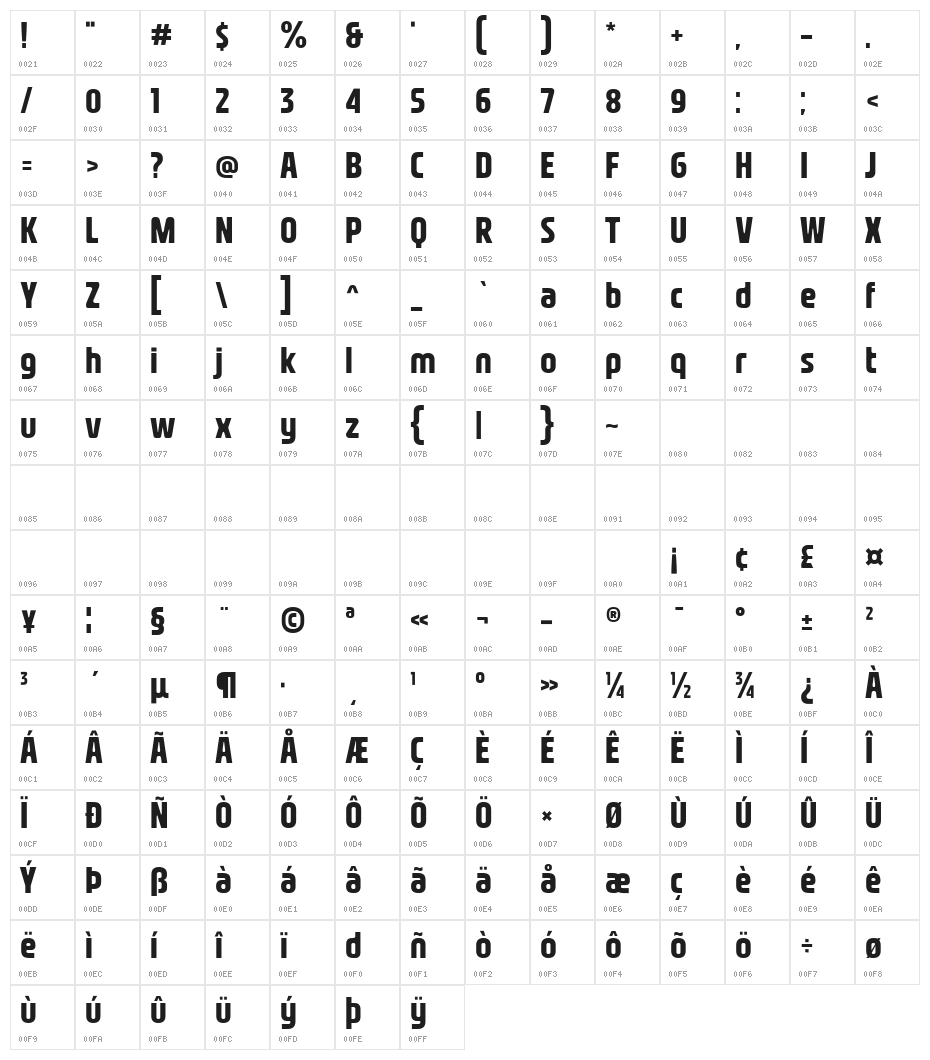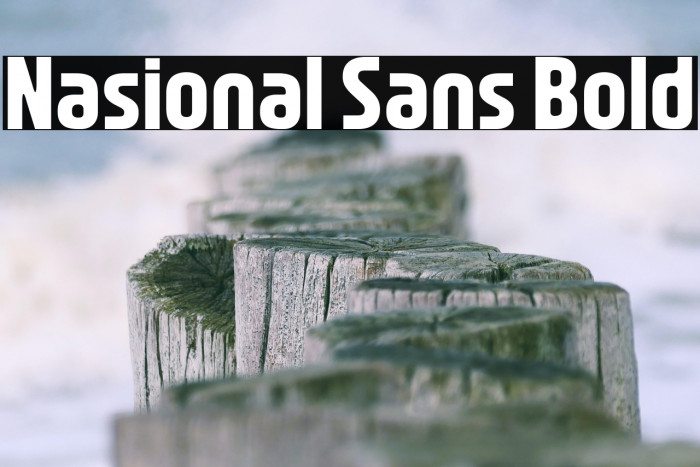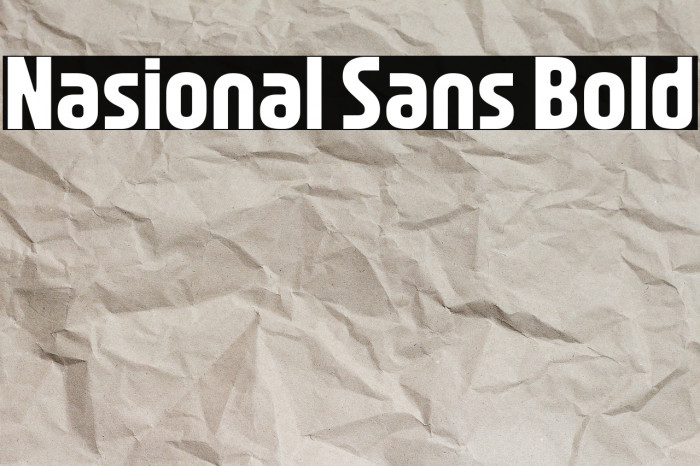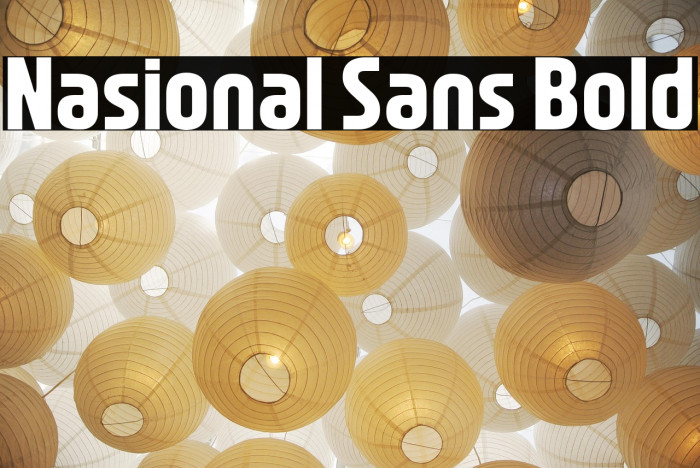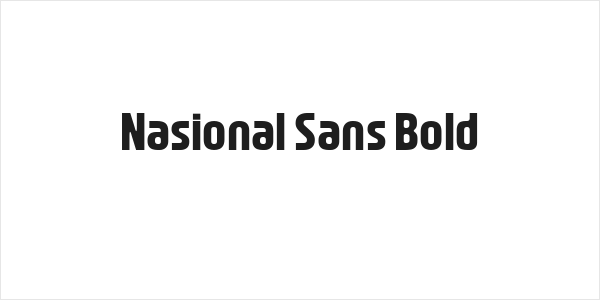
Nasional Sans Bold Font
Nasional Sans Bold Description
This font presents a bold and assertive sans-serif style, characterized by its strong geometric shapes and uniform stroke widths. The uppercase letters are robust and impactful, making them suitable for attention-grabbing headlines. The lowercase letters maintain a consistent design, ensuring readability and coherence. Numbers are clear and straightforward, while the special characters are well-defined, adding versatility to the font's use. The overall design is modern and clean, with a focus on clarity and simplicity.
| Proposed Projects | Ideal for branding, advertising, posters, and any project requiring a bold, modern aesthetic. |